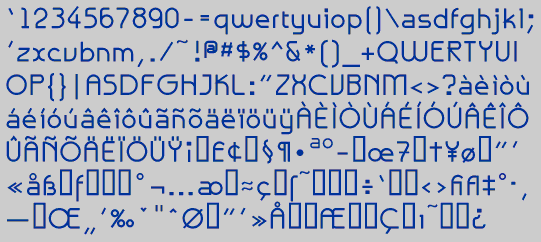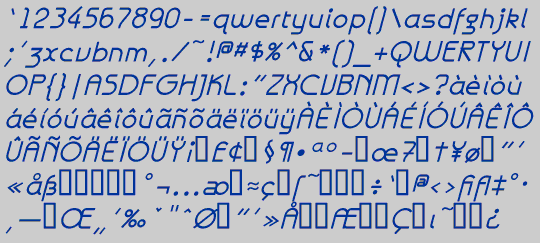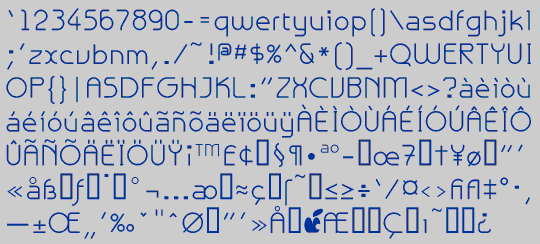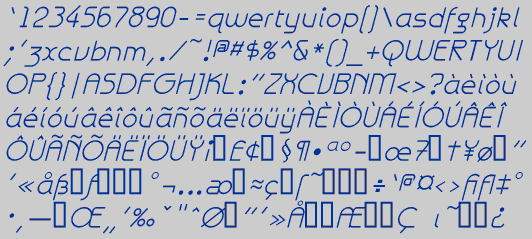
Galexica (Plain, Bold, Italic, BoldItalic, XBold)
Galexica began as an attempt to create a futuristic typewriter font, which may be an oxymoron. These results are preserved as GalexicaMono. I thought the design had more possibilities, so I continued to develop it as a proportional font. It is quite readable at small point sizes, but there are enough oddities in its letter shapes so that it is best used not as text but as a display face.